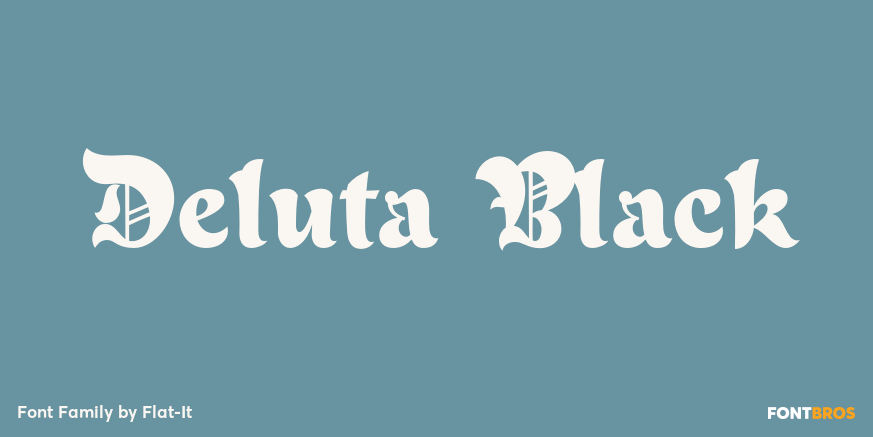
HomeFont BrosHistoricalDeluta Black Historical Deluta Black FacebookXPinterestWhatsApp 1 of 1 About Deluta Black You can not find such a lovely, unique and funny blackletters. Enjoy and have fun with this font.  DOWNLOAD ON FONT BROSThis font is sold and delivered by Font Bros. Font Canyon may earn a commission if you buy through this link. People also explored Sharkman Font Thasyalina Script Font Belma Flora Font Abdilla Font Pure Hand Font Mailuna Pro Music Font The Chariotte Font Water Font 427 0 TagsDeluta Black Font Previous articleFilmotype GingerNext articleData Error Horiz AOE Pro LEAVE A REPLY Cancel reply Comment: Please enter your comment! Name:* Please enter your name here Email:* You have entered an incorrect email address! Please enter your email address here Website: Save my name, email, and website in this browser for the next time I comment. Personal Use Free Soria Personal Use Free Read more about this font Eniem Personal Use Free Read more about this font BD Nokio Personal Use Free Read more about this font Multicolore Personal Use Free Read more about this font BLOG Elegant Wedding Invitation Fonts – Handwritten & Script Fonts Elegant Wedding Invitation Fonts Your wedding day is one of the most important moments of your life, and every detail matters—including your invitation design. Our... How to Cut Any Font on Cricut: Convert a Font to SVG (Free) Best Fonts for YouTube Videos: Make Your Thumbnails Stand Out Fonts That Capture the Spirit of New York City